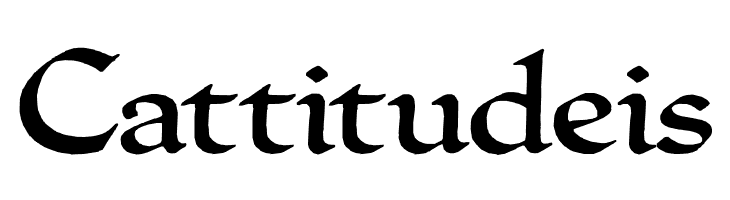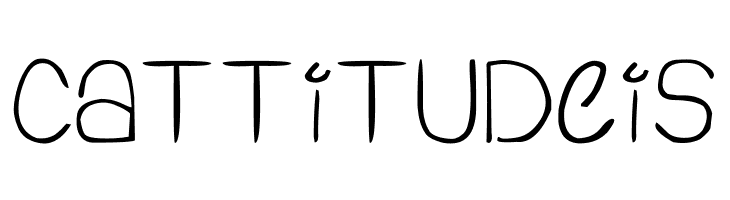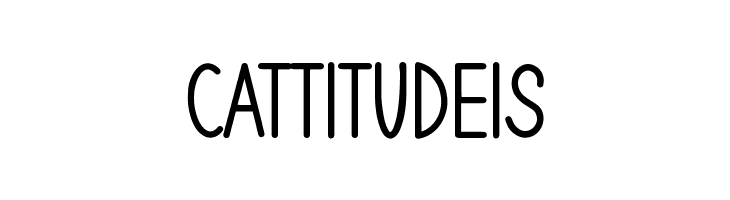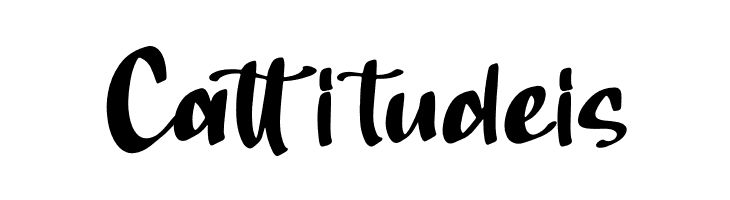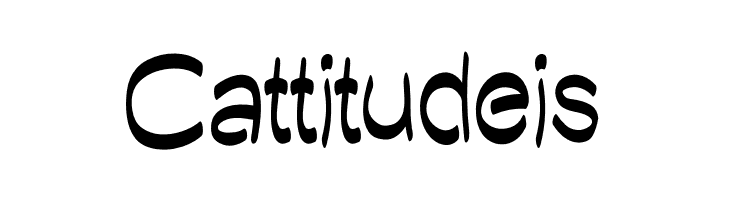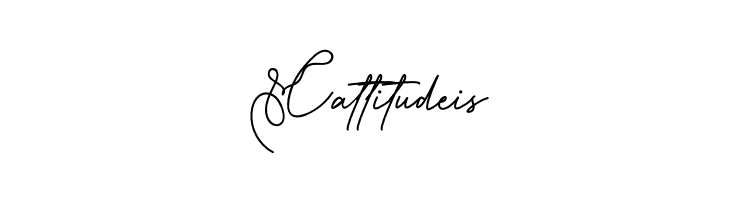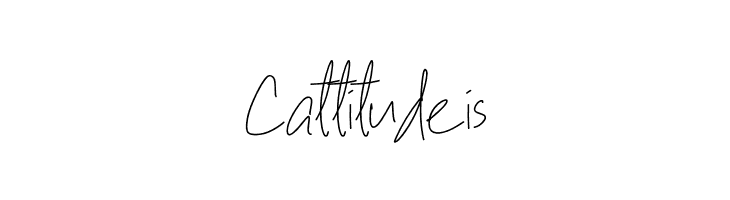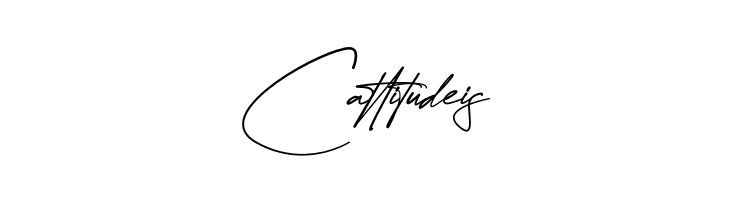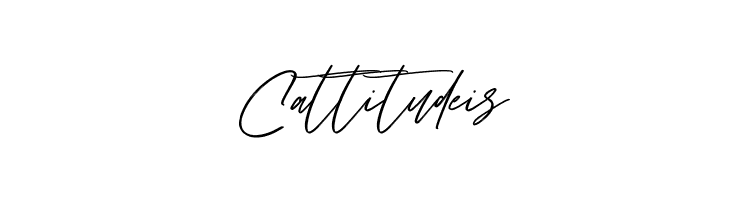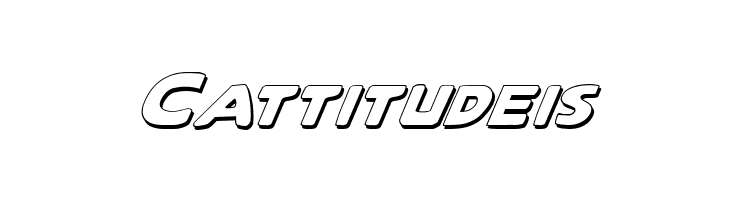
A bold, expressive brush-style font with dynamic strokes.
A playful, casual handwritten font with smooth, flowing lines.
A playful, handwritten font with a whimsical and casual style.
An elegant, whimsical font with flowing, interconnected strokes and decorative flair.
Elegant script font with decorative swirls.
A playful, handwritten font with an informal and organic style.
A playful and elegant script font with flowing, cursive letterforms.
An elegant and whimsical script font with flowing, interconnected letterforms.
An artistic, cursive font with elegant loops and swirls.
Expressive handwritten script with a casual, flowing style.
A playful, casual handwritten font with smooth, rounded lines.
A playful, bold font with rounded, thick strokes and a hand-drawn feel.
A refined, cursive handwritten script with thin, flowing lines.
A playful, handwritten-style font with tall, narrow characters and smooth curves.
Casual handwritten font with a loose style.
Casual handwritten font with playful, informal style.
A playful, rounded font with smooth curves and uniform stroke width.
A fluid, cursive script font with elegant, connected characters.
A casual, handwritten font with a dynamic and energetic style.
Bold, cursive script with a handwritten style.
A playful, hand-drawn font with dynamic strokes and a whimsical style.
A bold, handwritten font with a dynamic and energetic style.